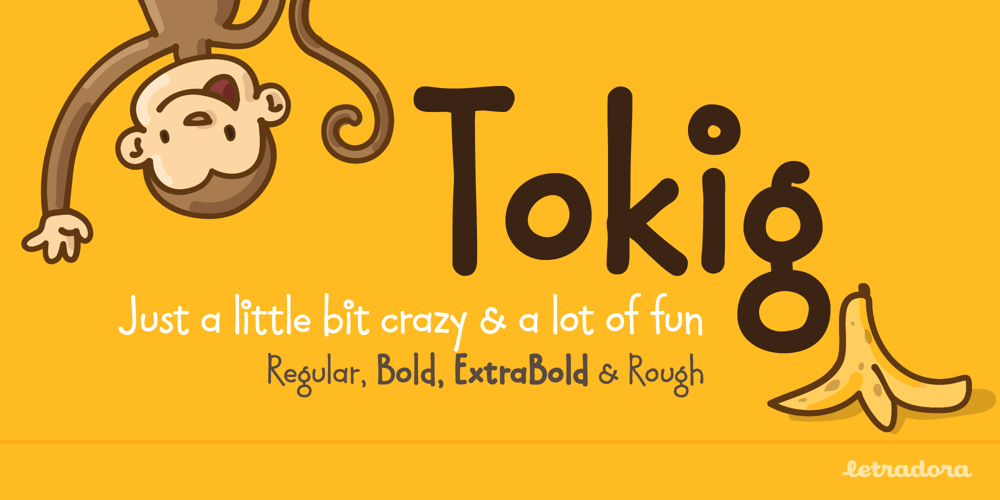
Tokig Px
Tokig Px font
Tokig Px Font Family was designed by Kemie Guaida Ortega and published by Letradora. Tokig Px contains 4 styles and family package options. Tokig is a fun, whimsical font with varying heights and a wiggly baseline, yet very legible and with a very complete character set. It’s perfect for kid-related products or other fun applications.